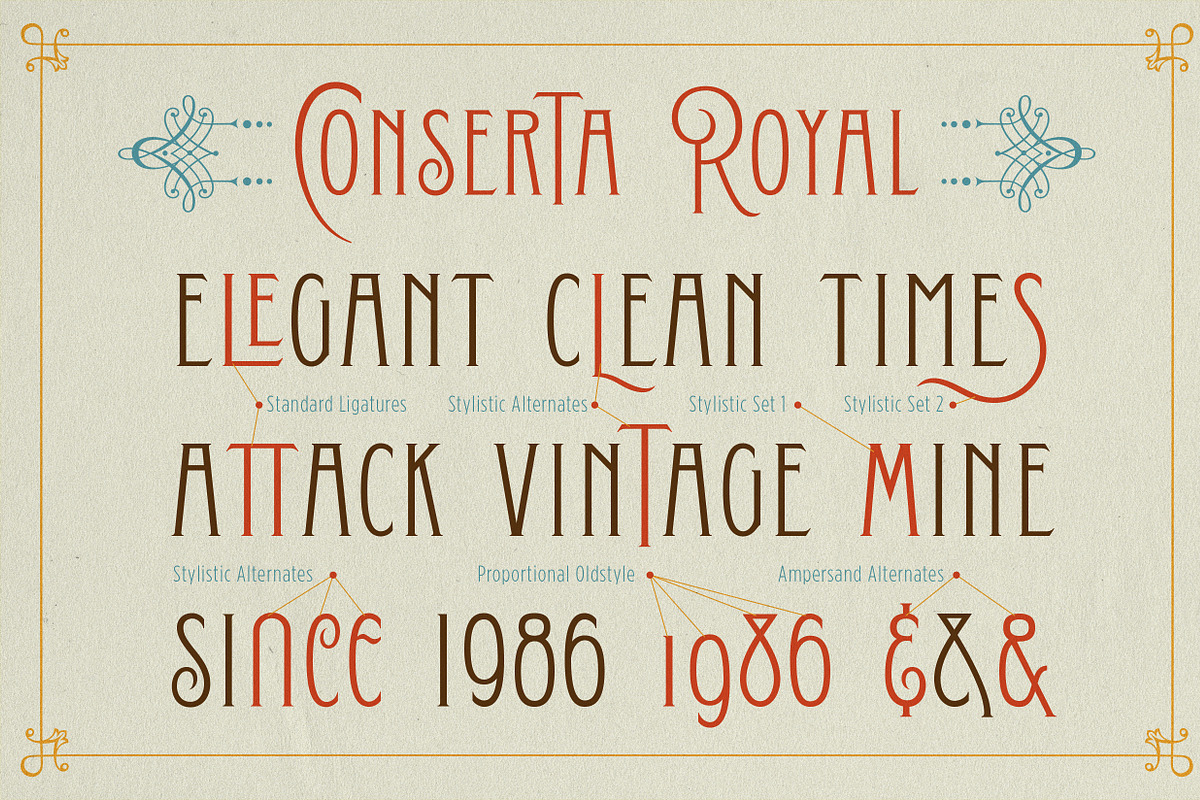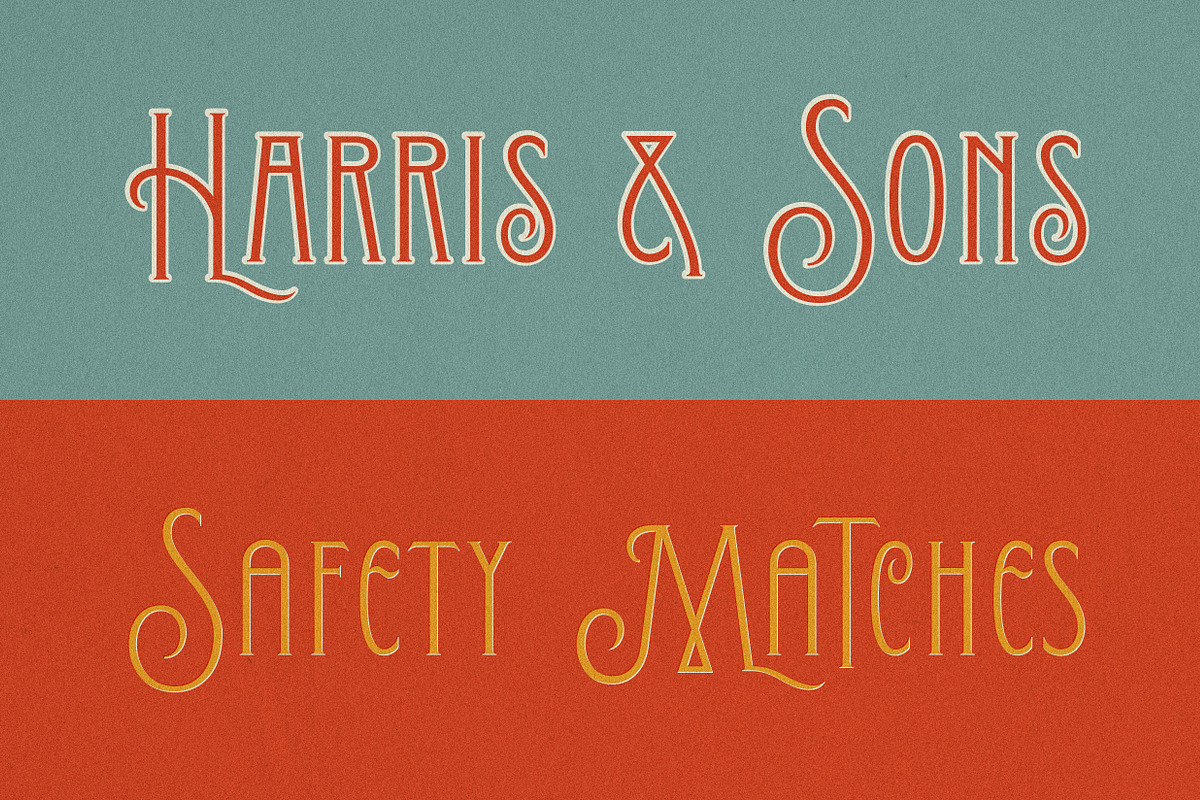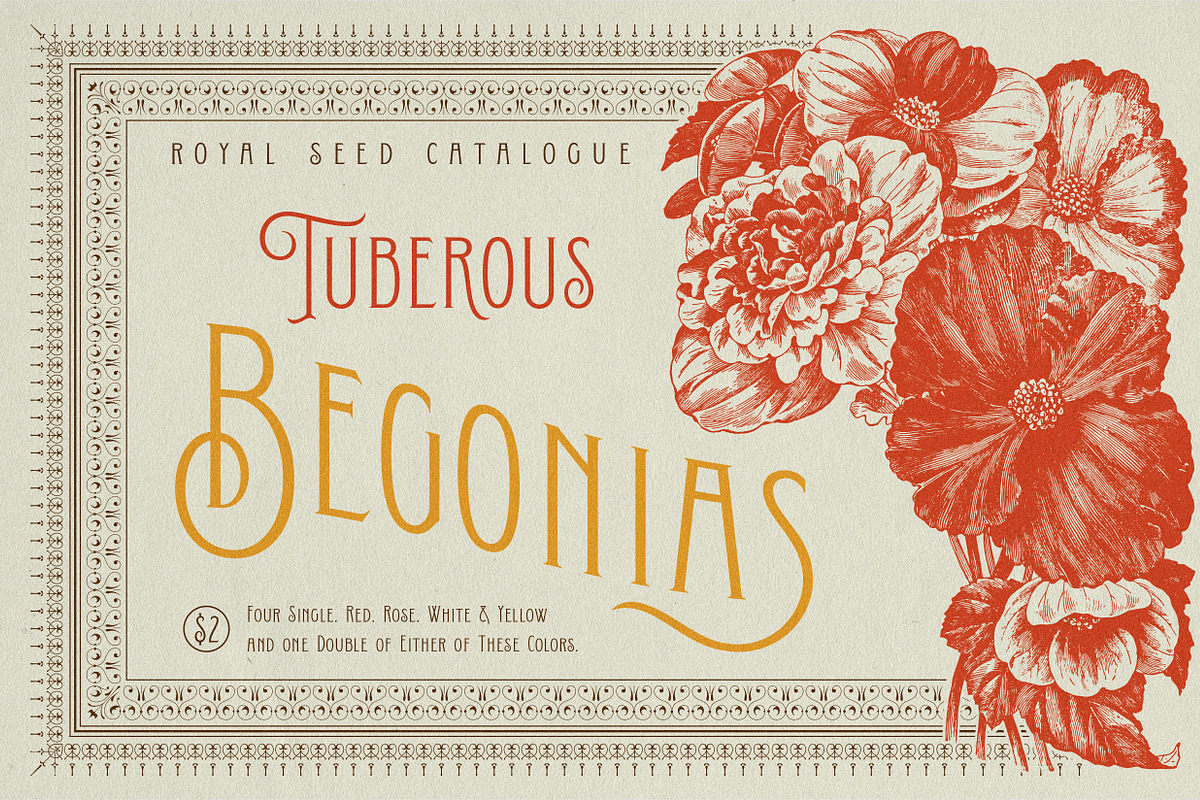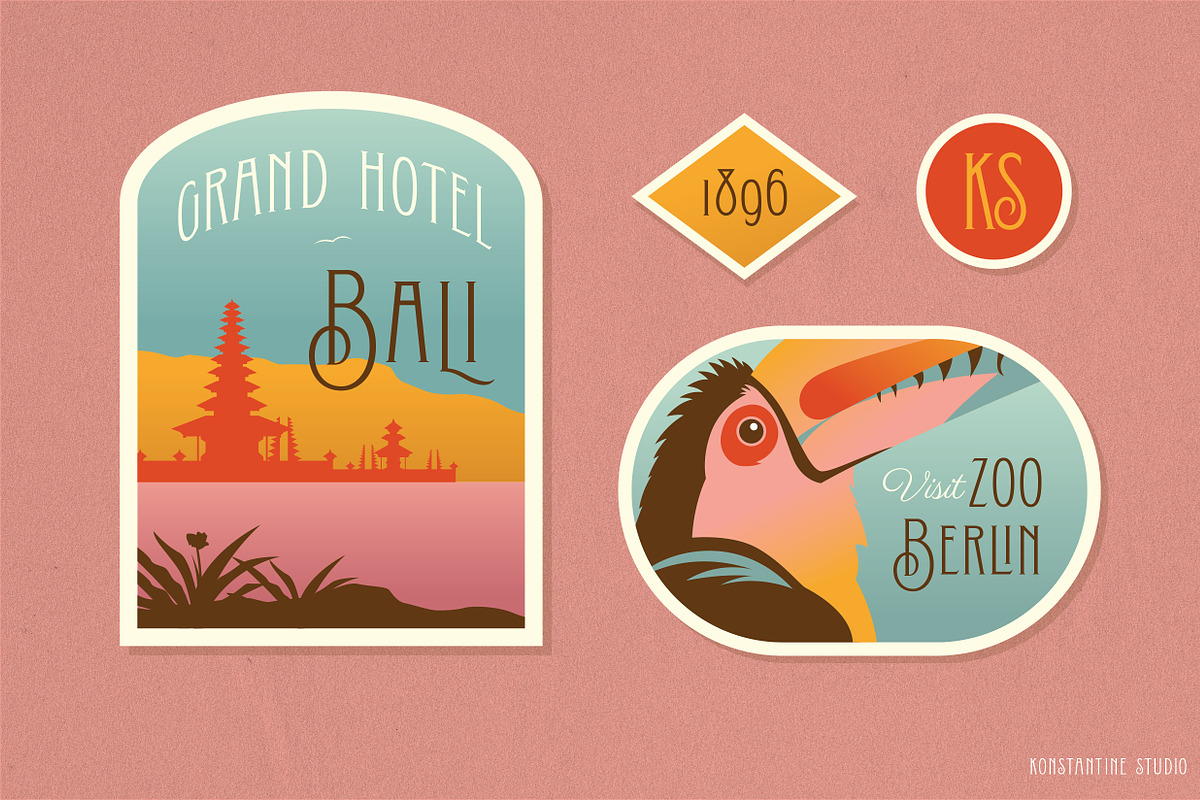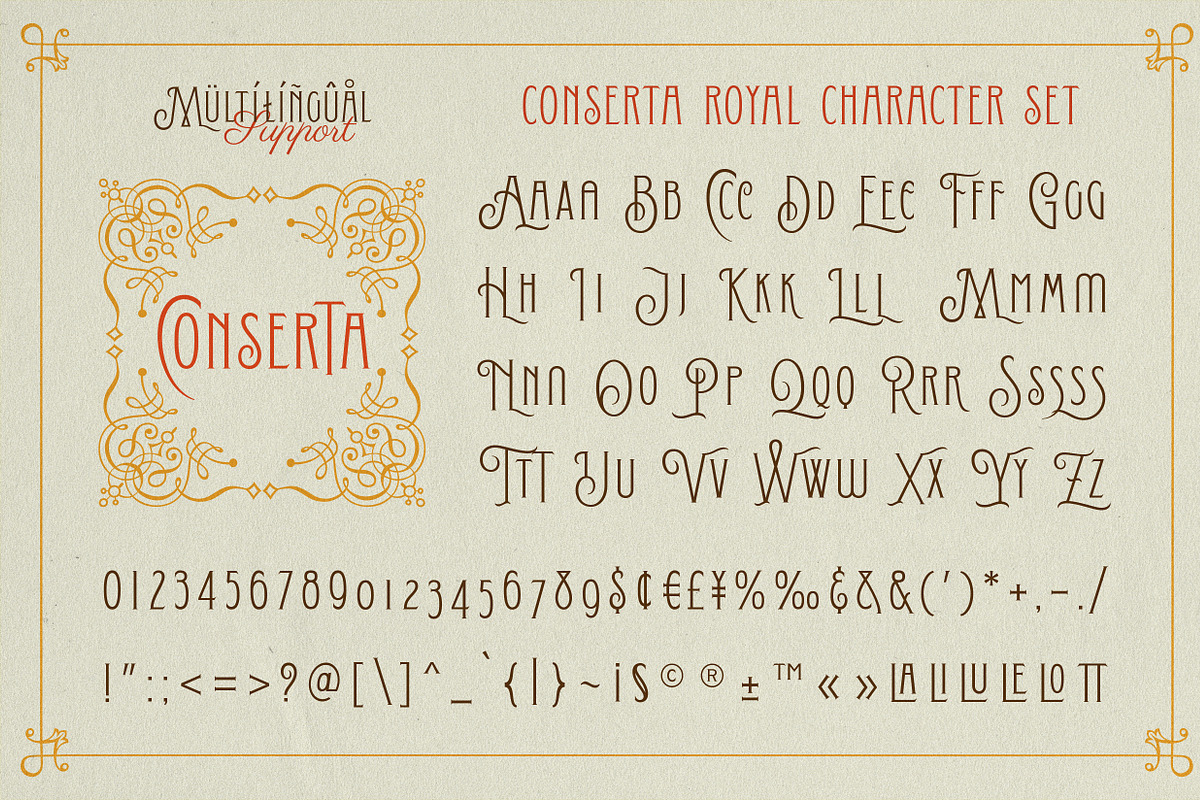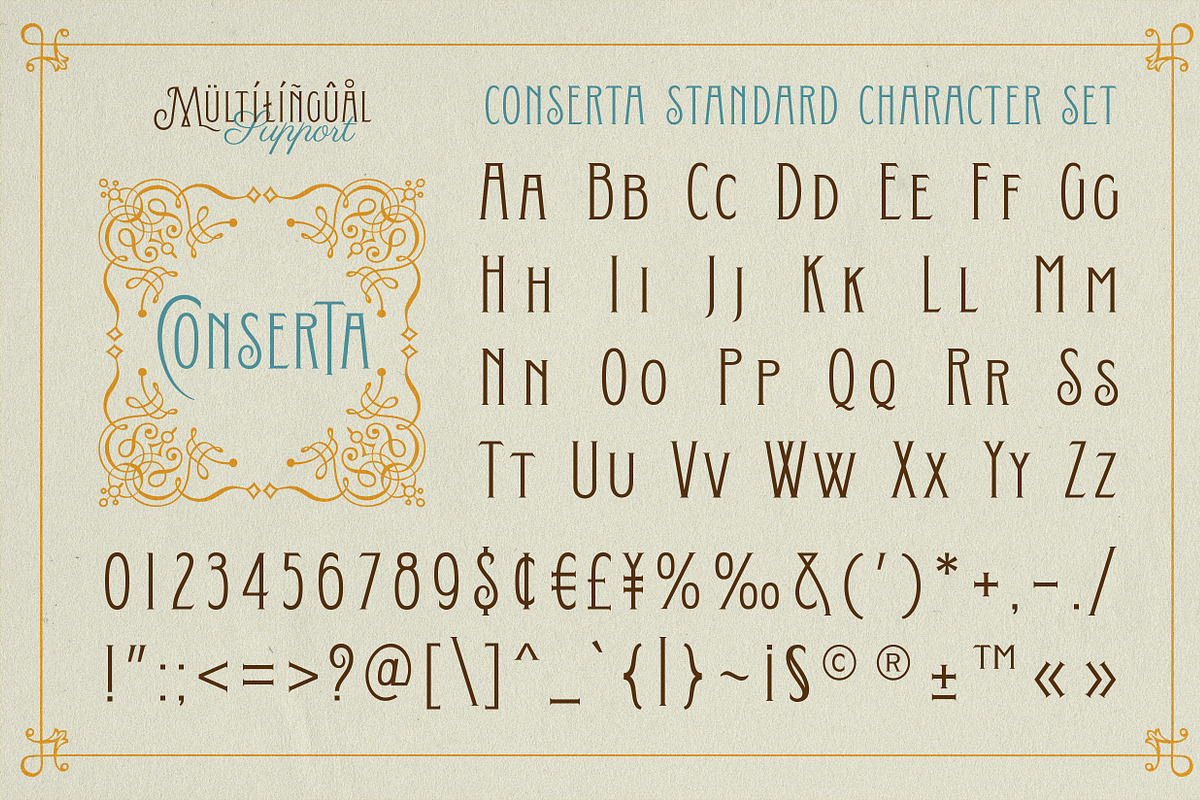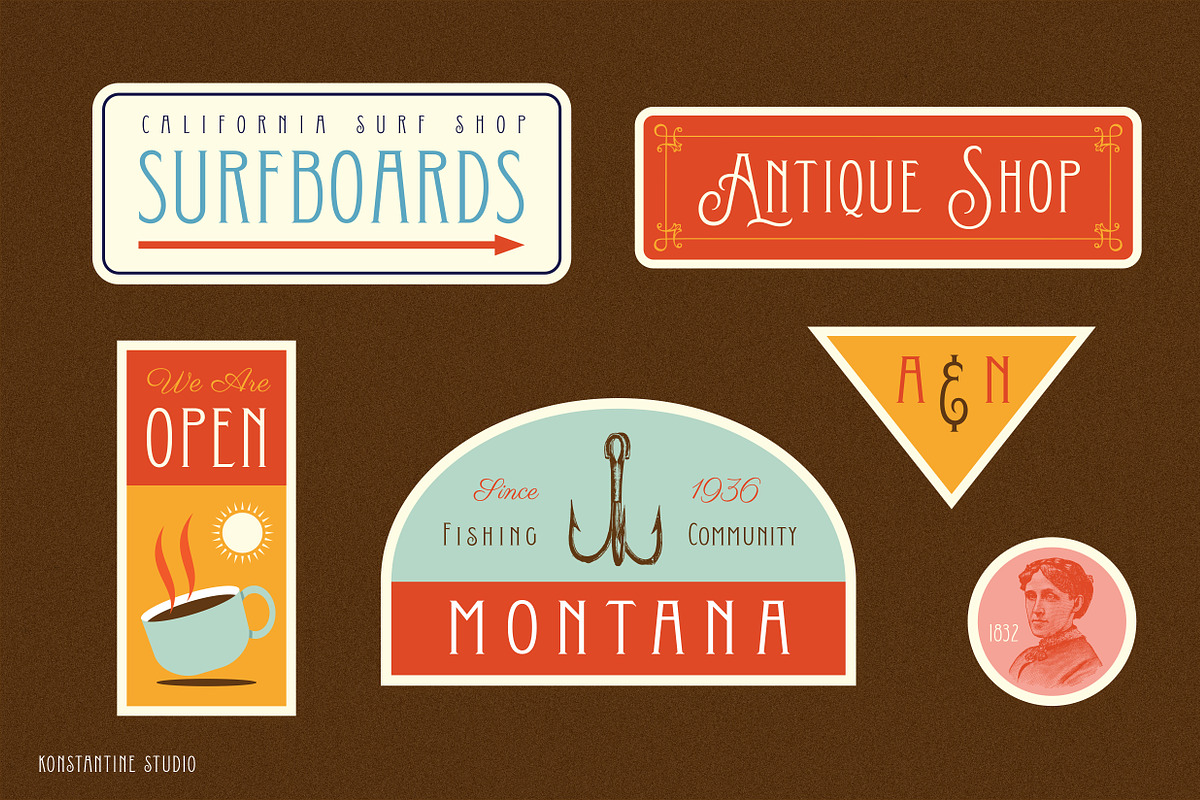
Conserta - Vintage Display Font
Inspired by the vintage label and packaging design, we do a very fun research about the typeworks in the old era. We drown too deep in every single reference that we found. Super mesmerized with how each letters flow so uniquely in every brand's packaging display.
We sum up every idea, build the characters one by one, carefully crafting in every single click, till the day that we've been waiting for finally come.
Proudly present, CONSERTA. A beautiful vintage display serif typeface. Packed up with a bunch of features like Stylistic Alternates, Ligatures, and Oldstyle Numbering, To expand the flow and characteristic in every single letters. Perfectly fit for any of your vintage touch of branding and visual content.